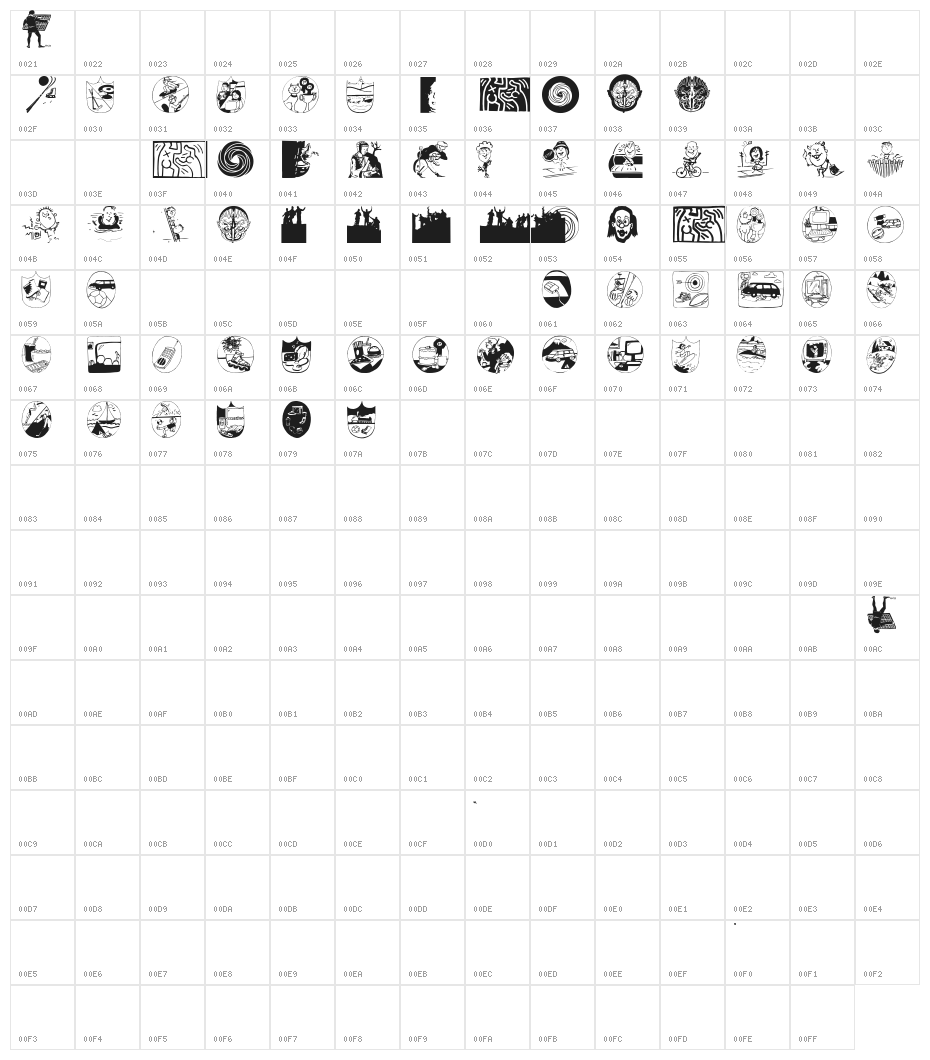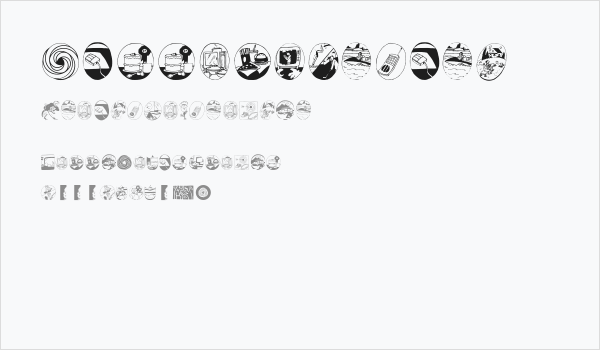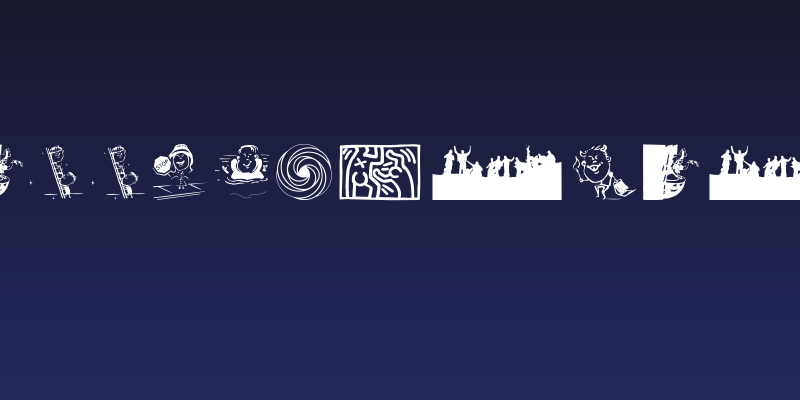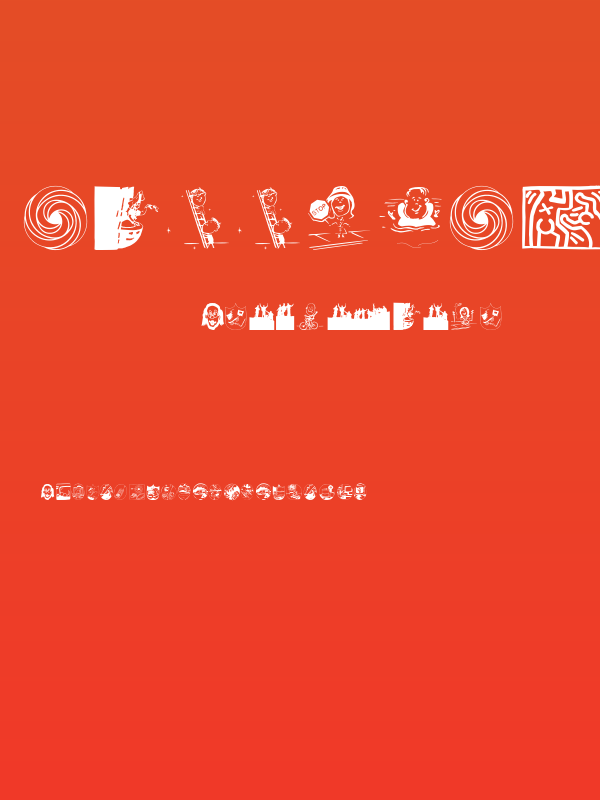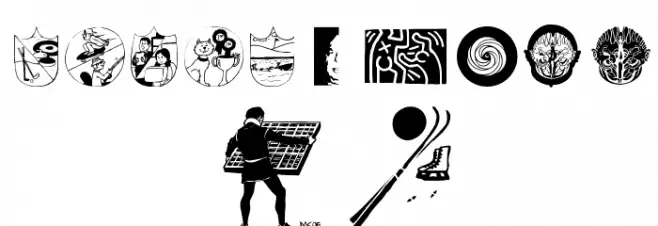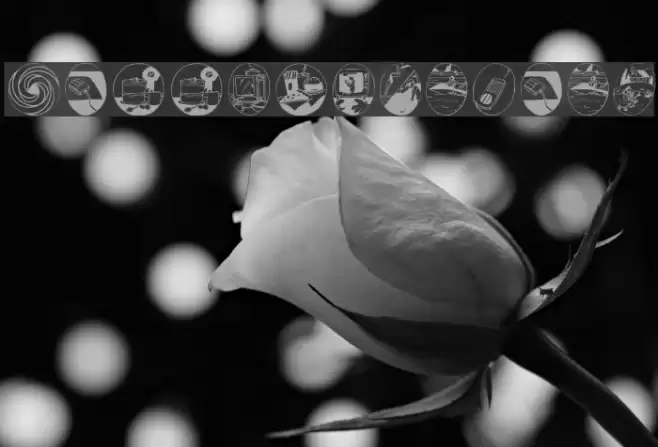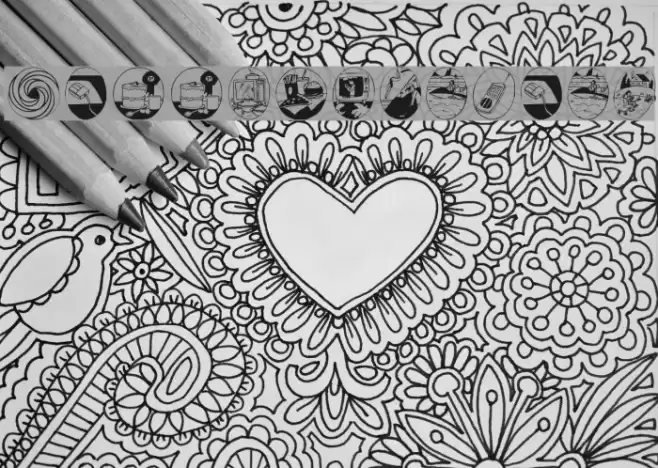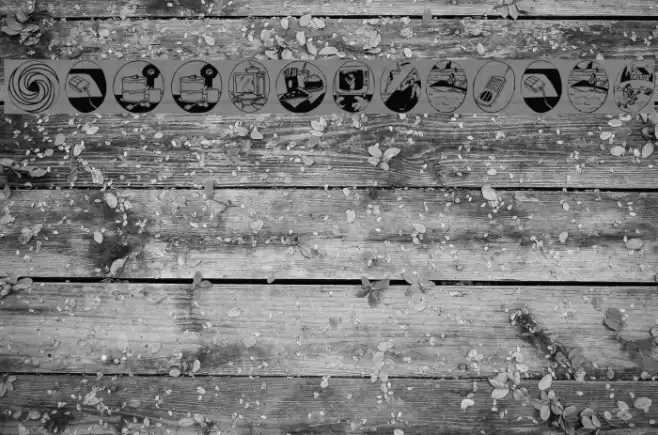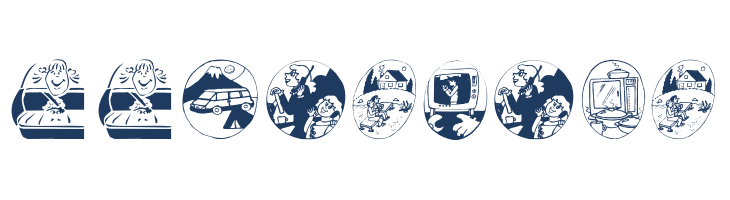
Sammelsuriart Font
A highly decorative and illustrative font where each character is represented by a unique cartoon or graphic scene, often enclosed in a shape or vignette. The glyphs are playful, detailed, and vary widely in subject matter, making the set visually engaging but not suitable for standard text.
| Overall Style | Decorative, Playful, Illustrative |
| Use Case | Logos, Posters, Themed headlines, Educational graphics |
| Proposed Projects | Children’s books, educational materials, playful posters, creative branding, art projects, custom icons. |